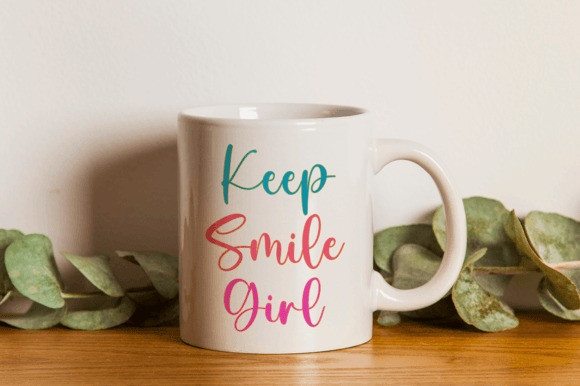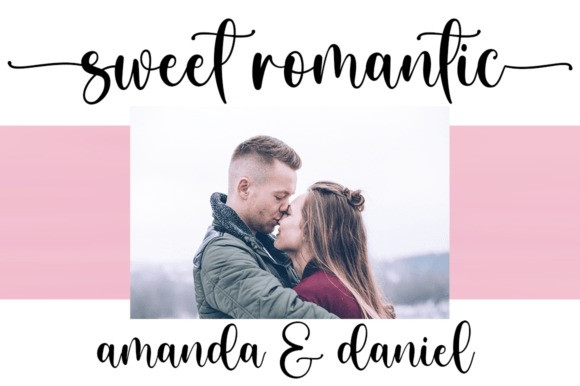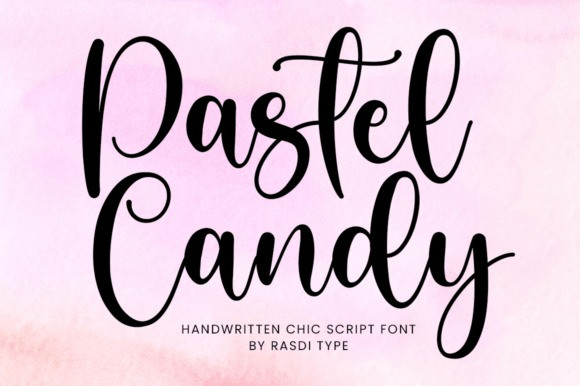
Pastel Candy Font
Pastel Candy Font is a lovely and delicate script font that exudes elegance and class, particularly crafted for those who need a beautiful and refreshing look to their designs. Add it to your creative projects, and it will make them come alive!